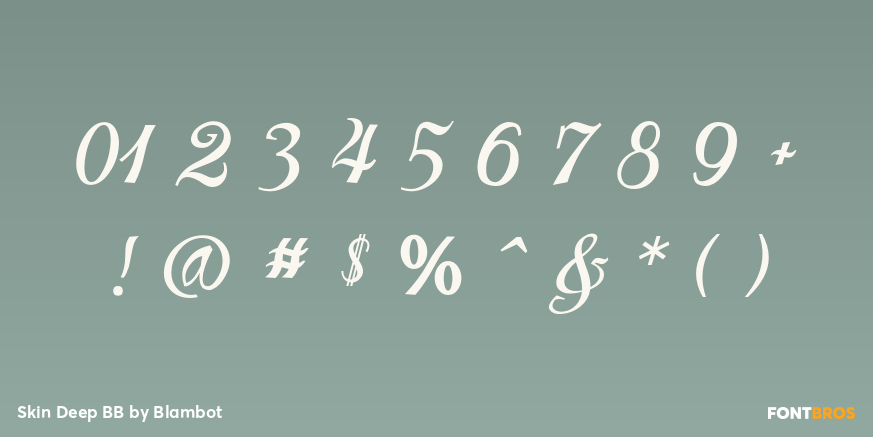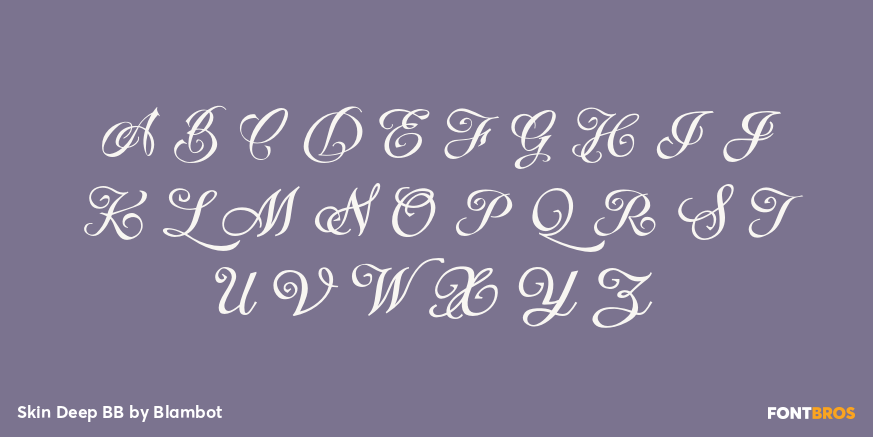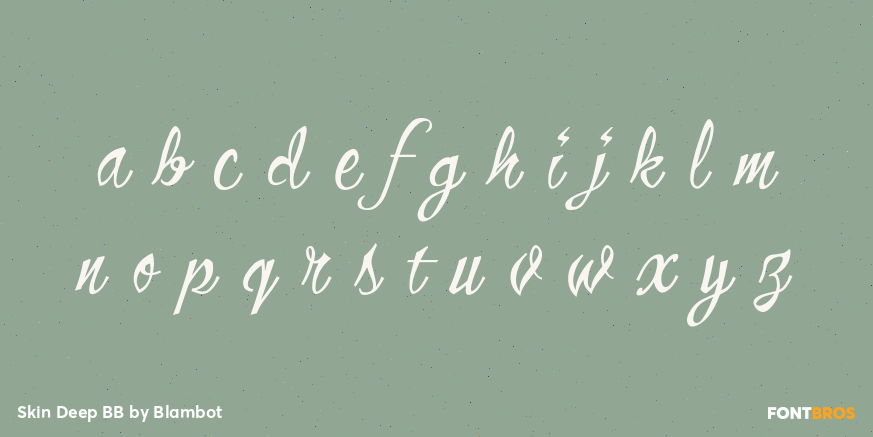
Skin Deep BB
?Skin Deep BB? is a quirky script typeface family inspired by modern tattooing!
It comes with a companion font called, ?Skin Deep Swashes BB? that has a set of lowercase letters with decorative swashes that are perfect for the end of any word.
With lots of European characters included, this font is perfect for tattooers or anyone who wants that unconventional tattoo calligraphy!